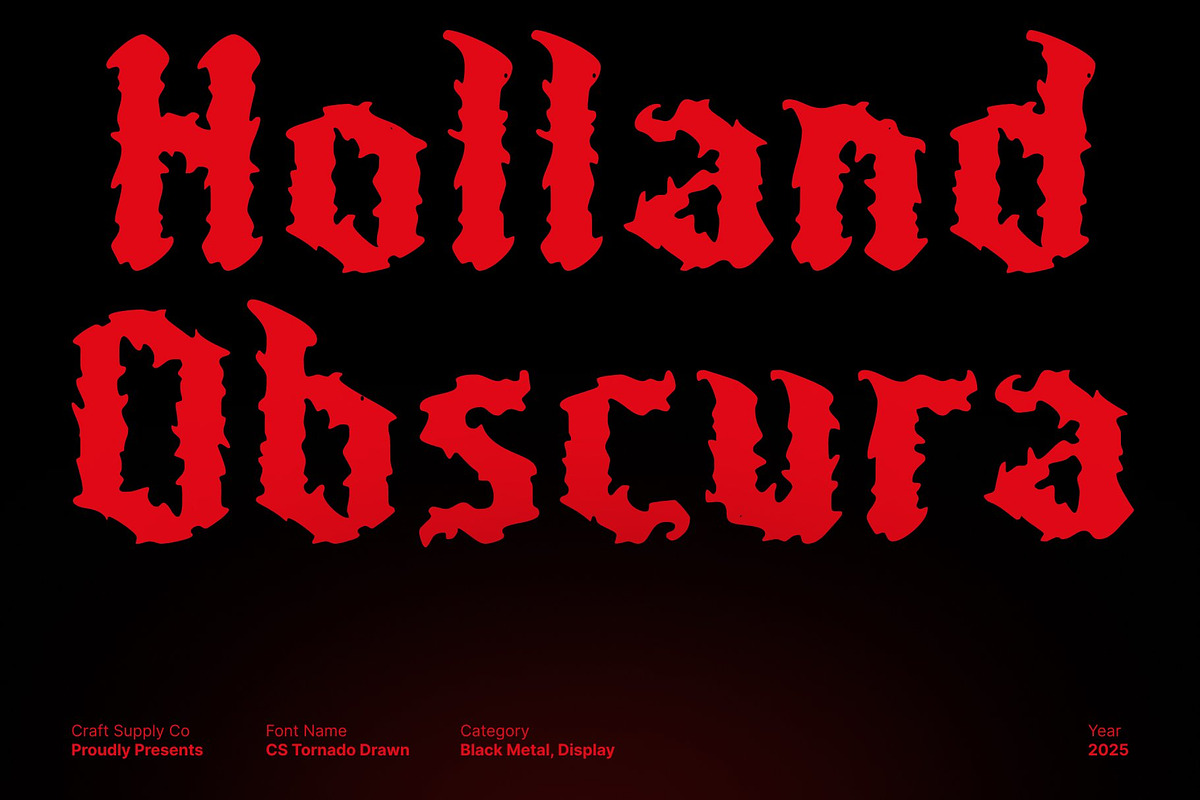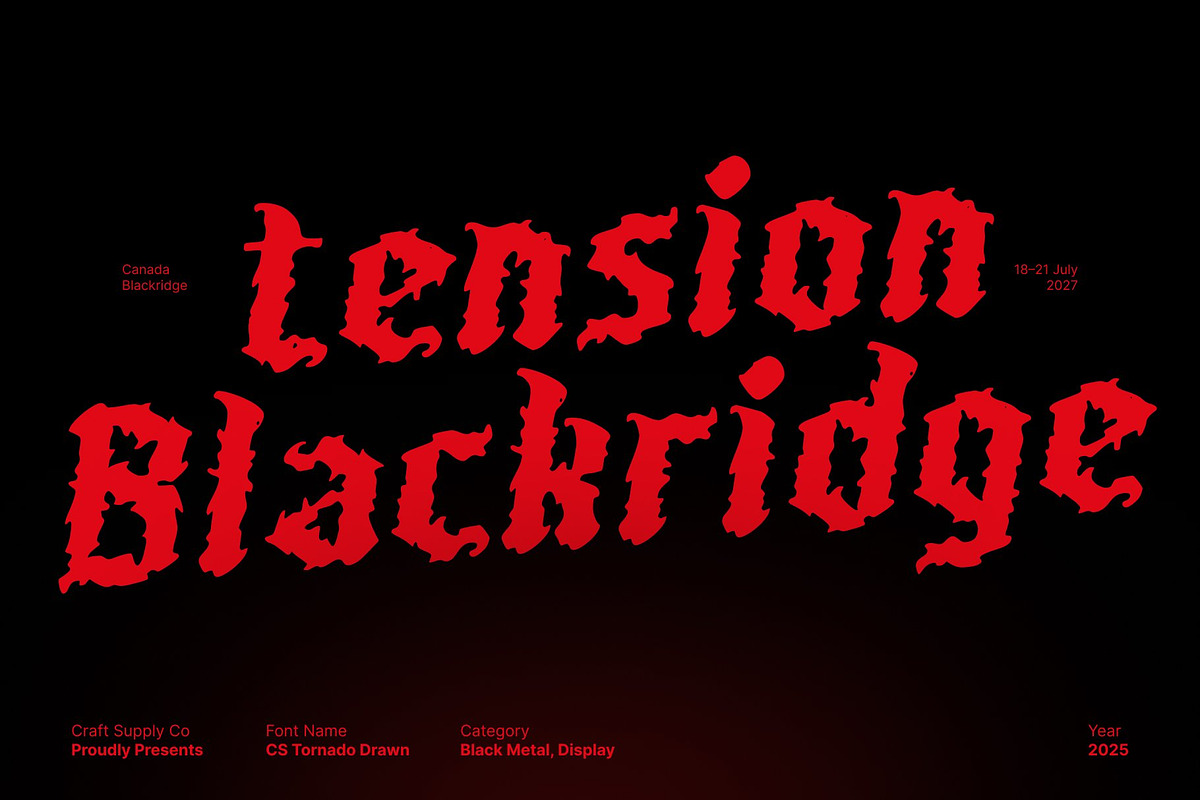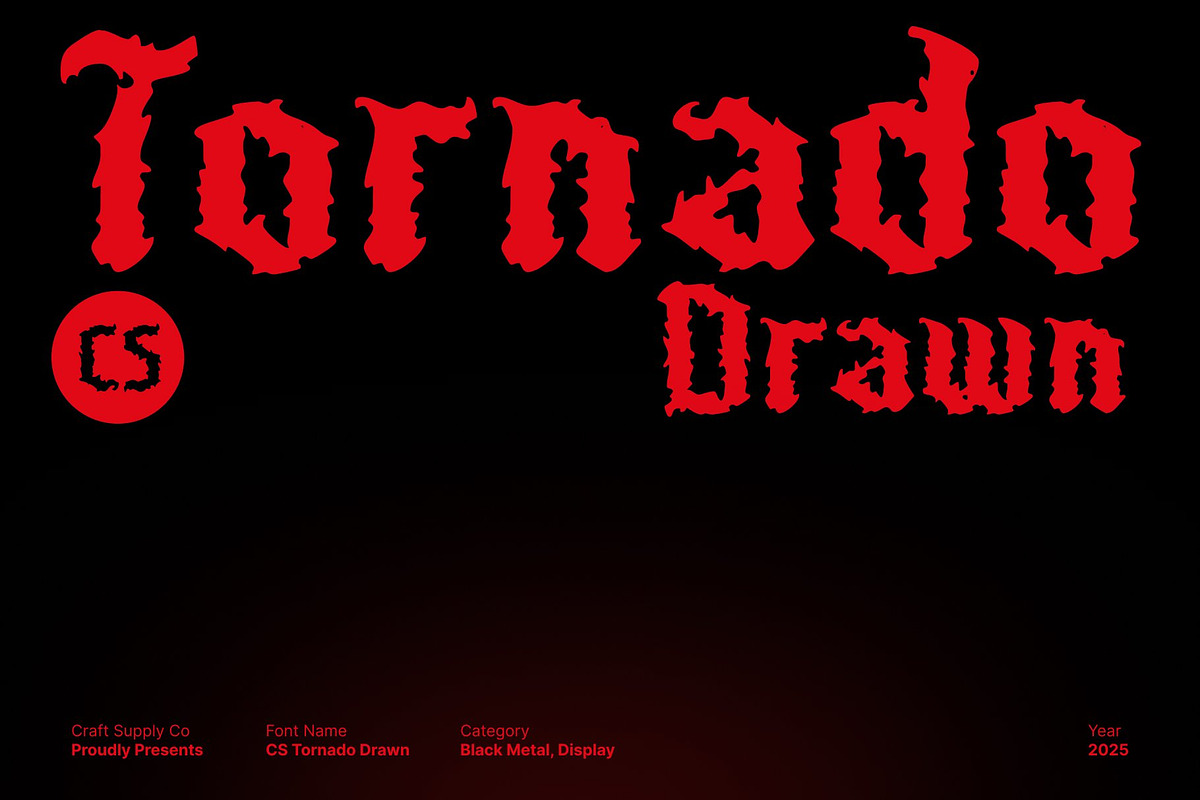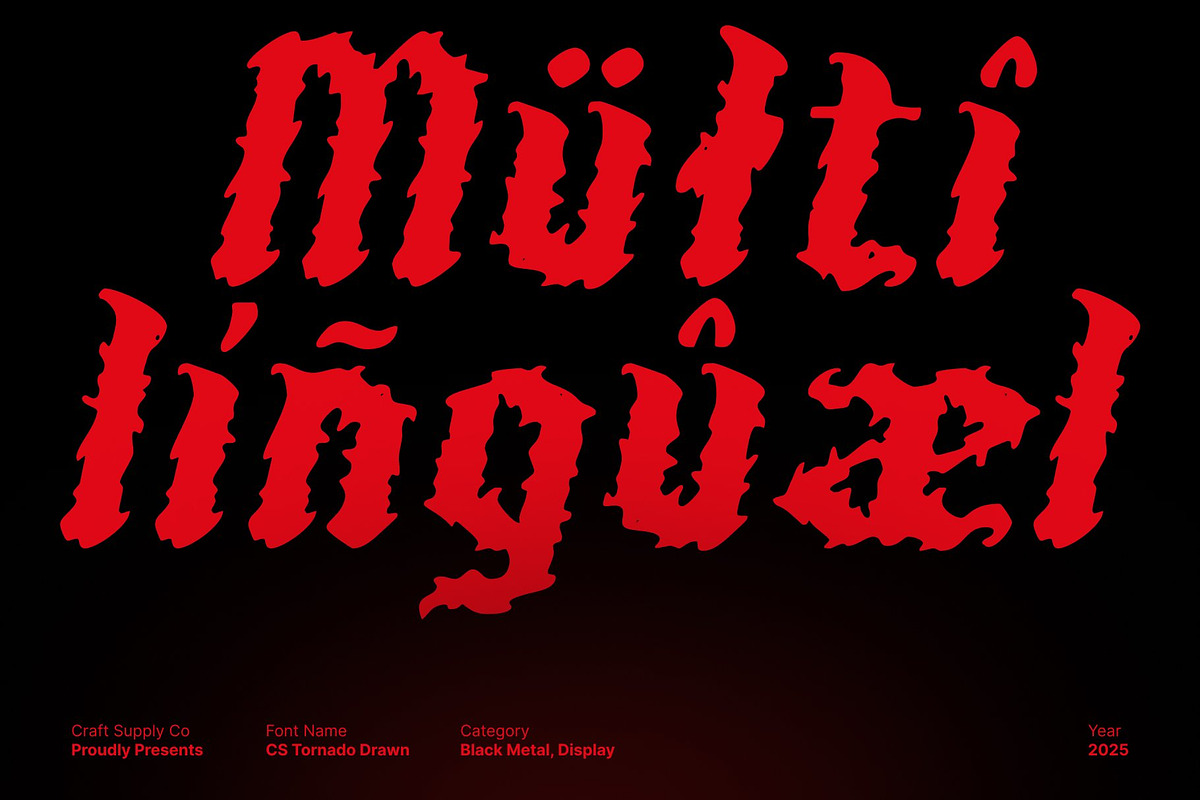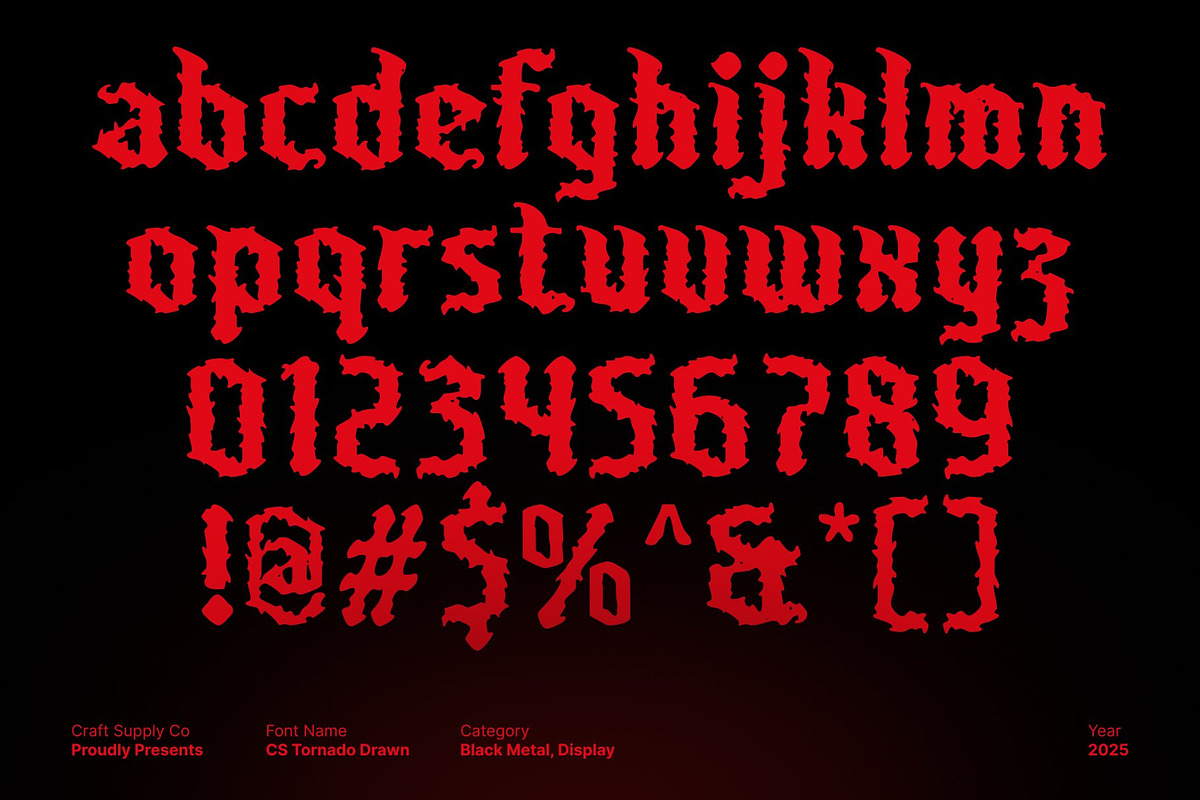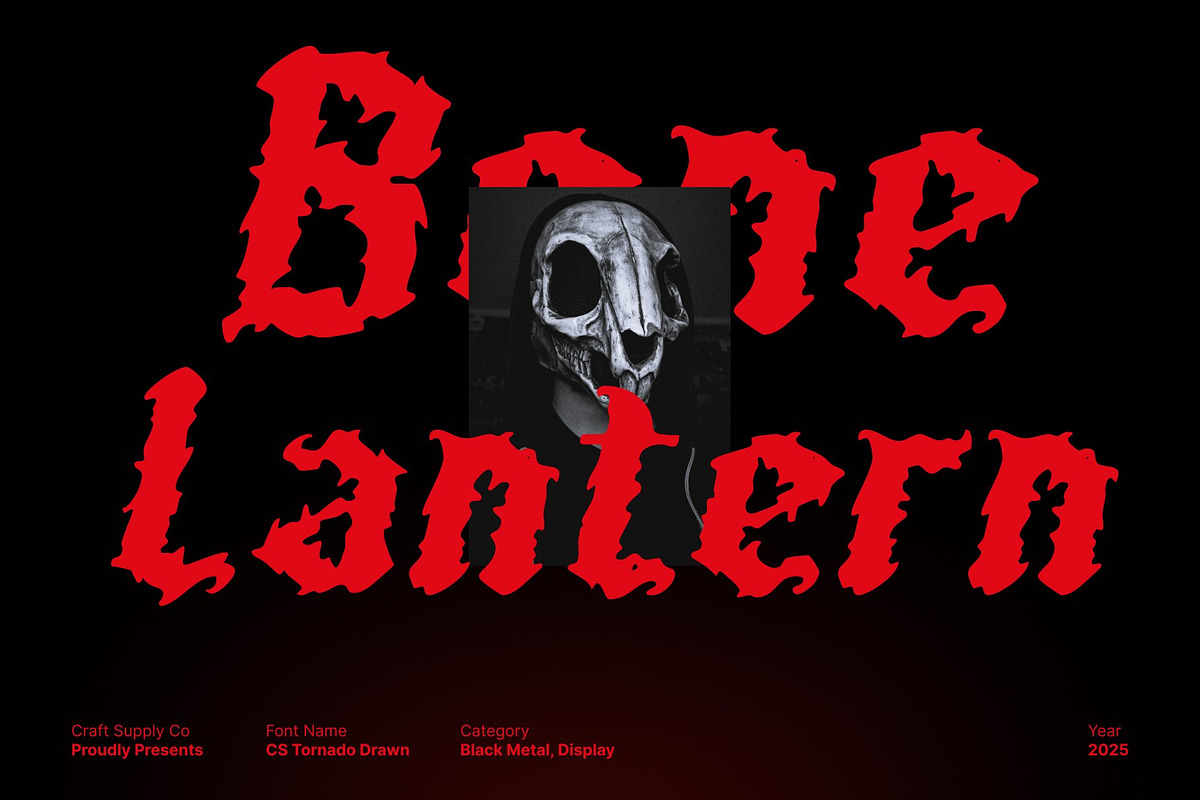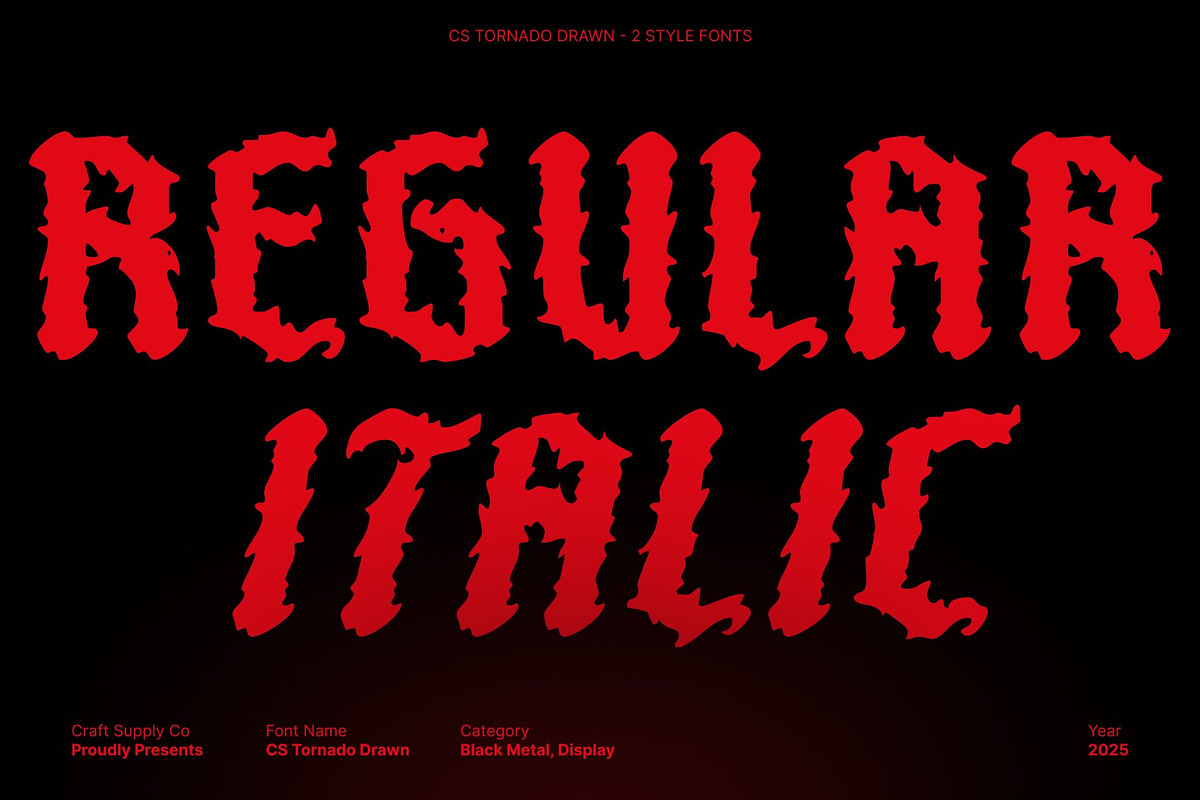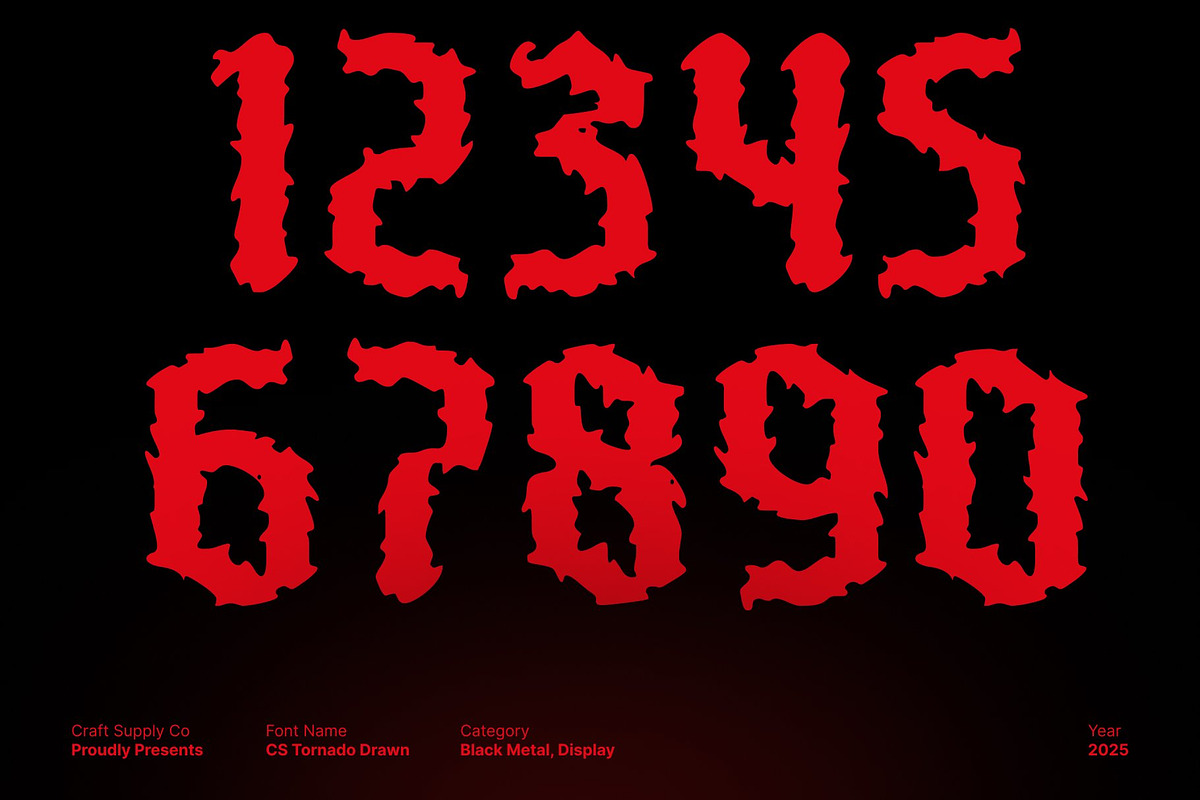
CS Tornado Drawn
CS Tornado Drawn – Black Metal Font with Chaotic, Jagged Fury
Wild, Aggressive Forms Packed with Darkness This is a raw and brutal black metal display font crafted to unleash pure visual intensity. Its jagged spikes, twisted shapes, and chaotic strokes embody the violent energy of extreme music. Each letter feels unrestrained and storm-like, giving your designs a fierce, unfiltered attitude.
Chaotic Hand-Drawn Texture for Authentic Edge Designed with a rough drawn effect, this font carries gritty, imperfect textures that elevate its dark personality. The irregular strokes and distressed lines give the font a handcrafted brutality, enhancing its raw, underground aesthetic. This hand-drawn detail makes every character look alive, unstable, and uniquely expressive.
Perfect for Band Logos, Posters, and Edgy Visuals This font thrives in designs that aim to feel intense, rebellious, and impactful. Whether you’re creating black metal band logos, album covers, gig posters, merchandise, or other edgy visuals, this font instantly sets a dark and powerful tone. Its aggressive form language ensures maximum presence and unmistakable attitude.
A Typeface That Captures the Spirit of Extreme Music This font merges jagged metal aesthetics with raw drawn texture to create a typeface filled with fury, chaos, and visual power. It’s bold, destructive, and unapologetically intense perfect for designers seeking a dramatic font that truly embodies the spirit of extreme music.